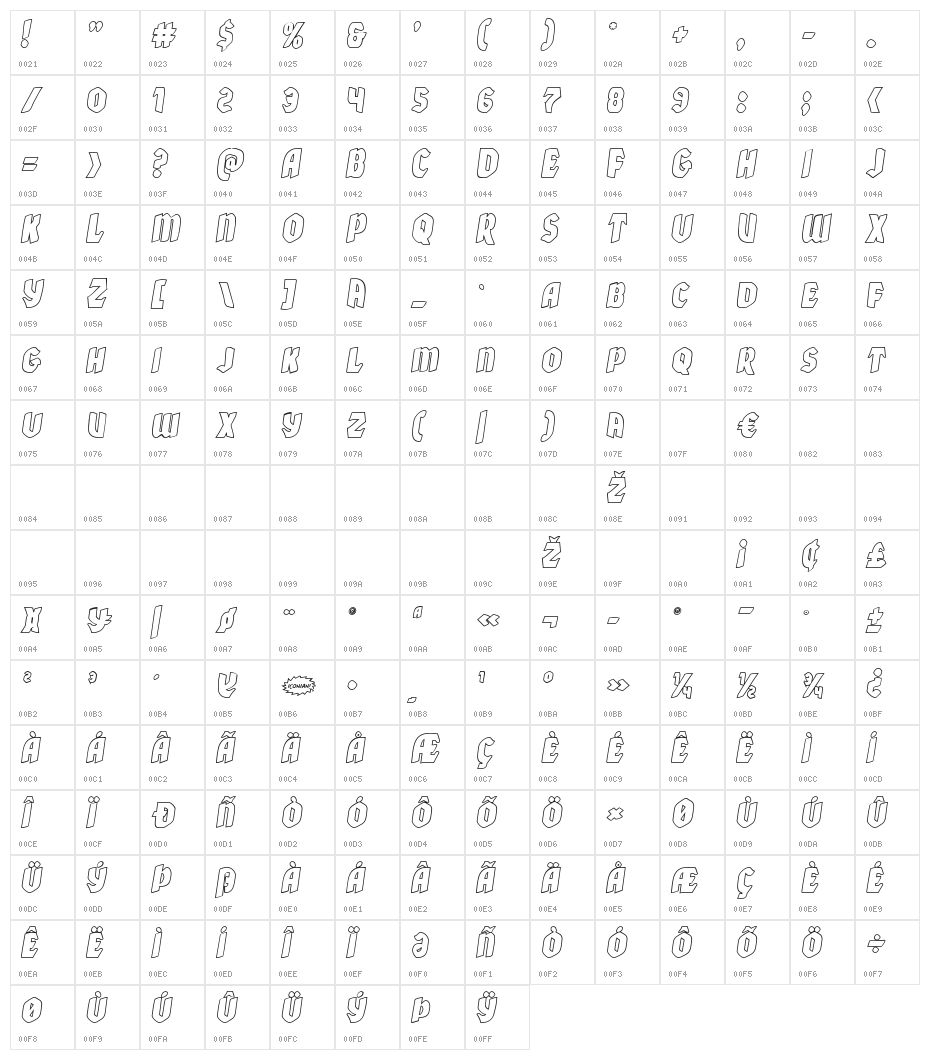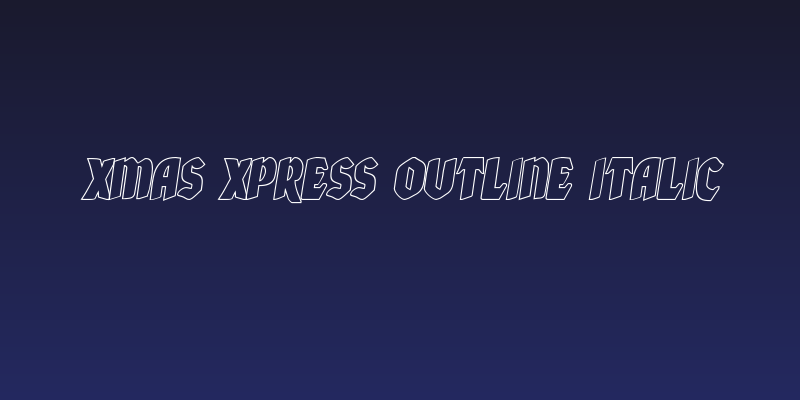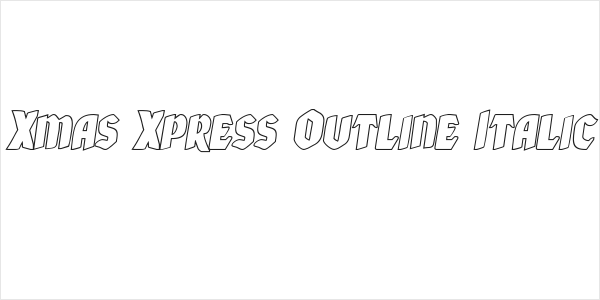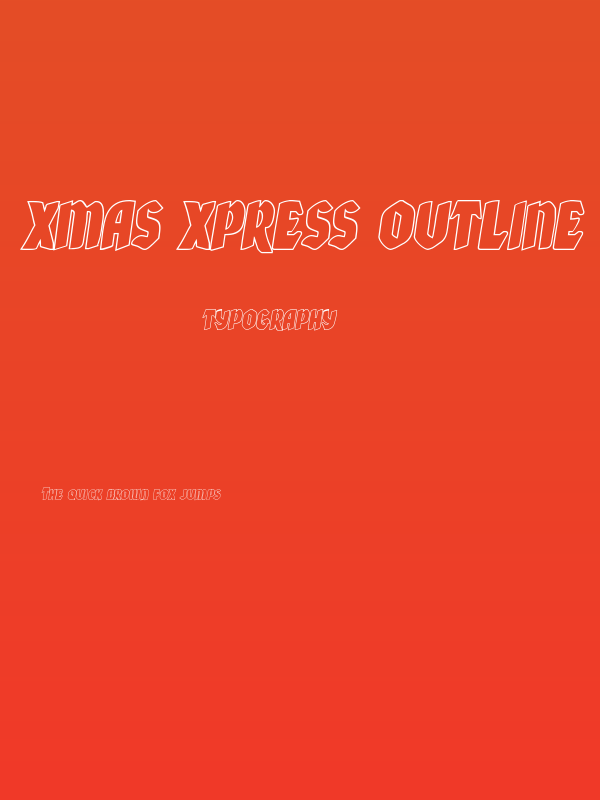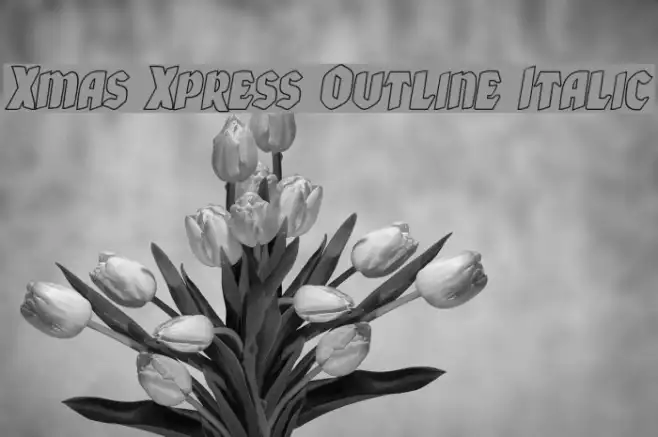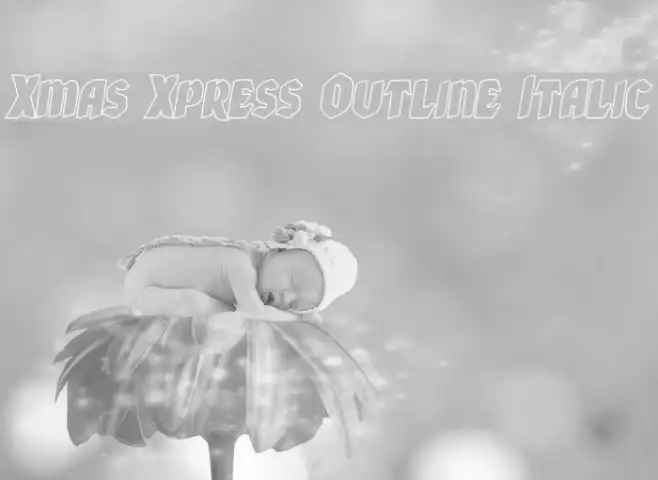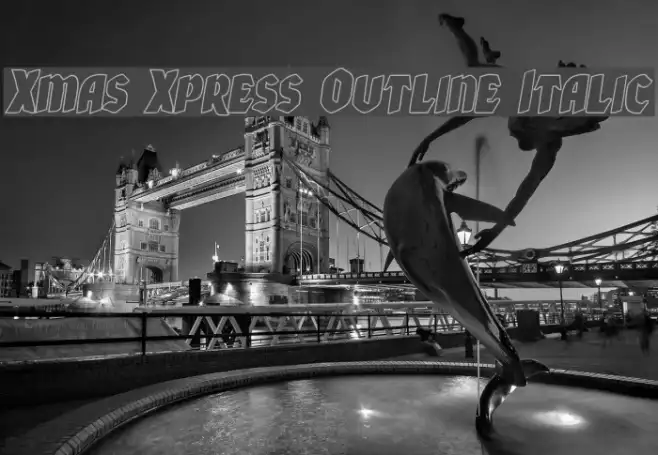
Xmas Xpress Outline Italic Font
Xmas Xpress Outline Italic Description
This font features a bold, playful outline style with a distinct italic slant, giving it a dynamic and energetic appearance. The characters are outlined, creating a hollow effect that adds a sense of depth and dimension. The uppercase and lowercase letters maintain a consistent style, with rounded edges and a slightly condensed form. The numbers and special characters follow the same design principles, ensuring uniformity across all glyphs. This font's unique outline and slanted design make it stand out, perfect for eye-catching displays.
| Proposed Projects | Ideal for festive designs, holiday cards, posters, and playful branding projects. |